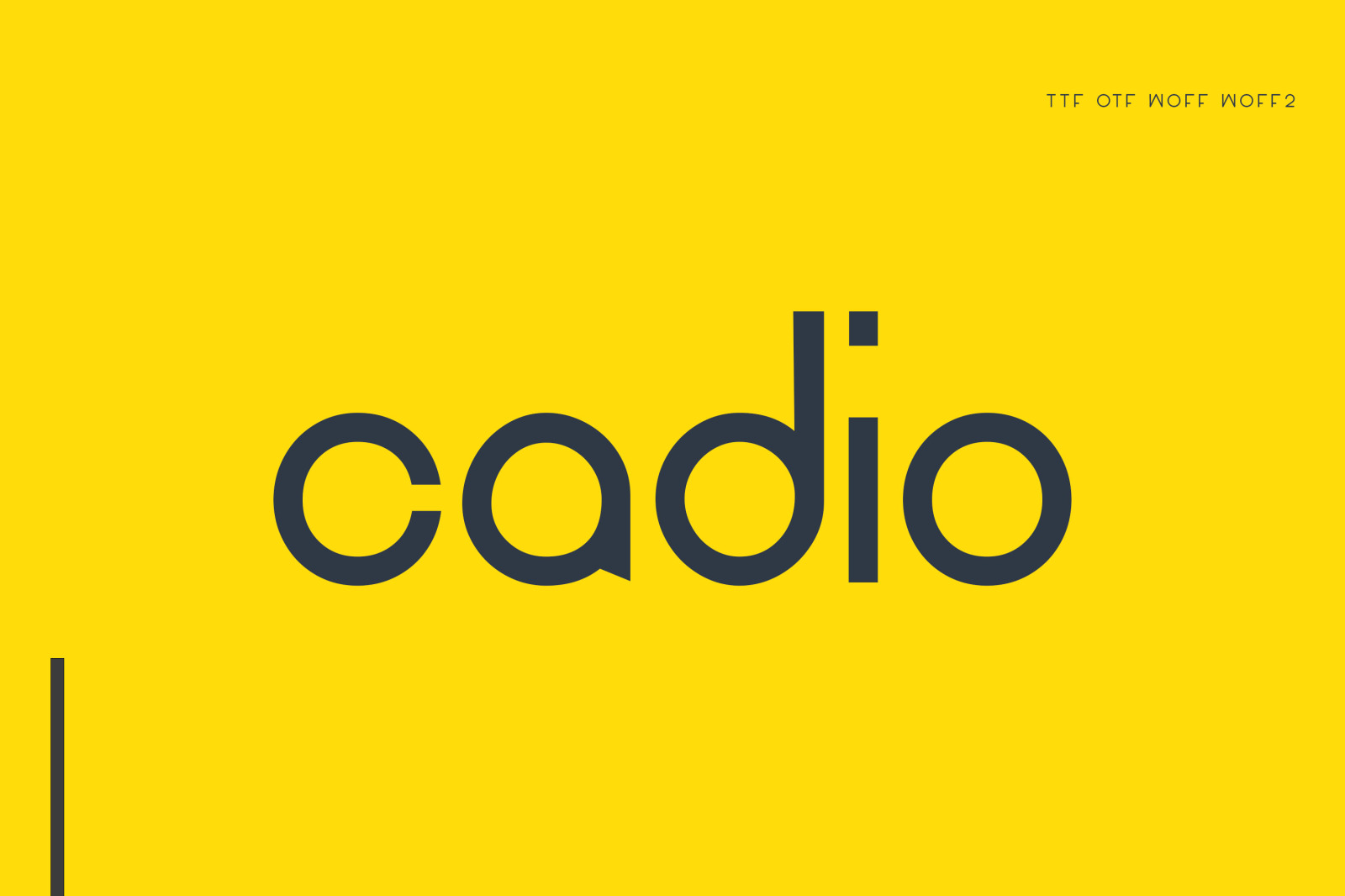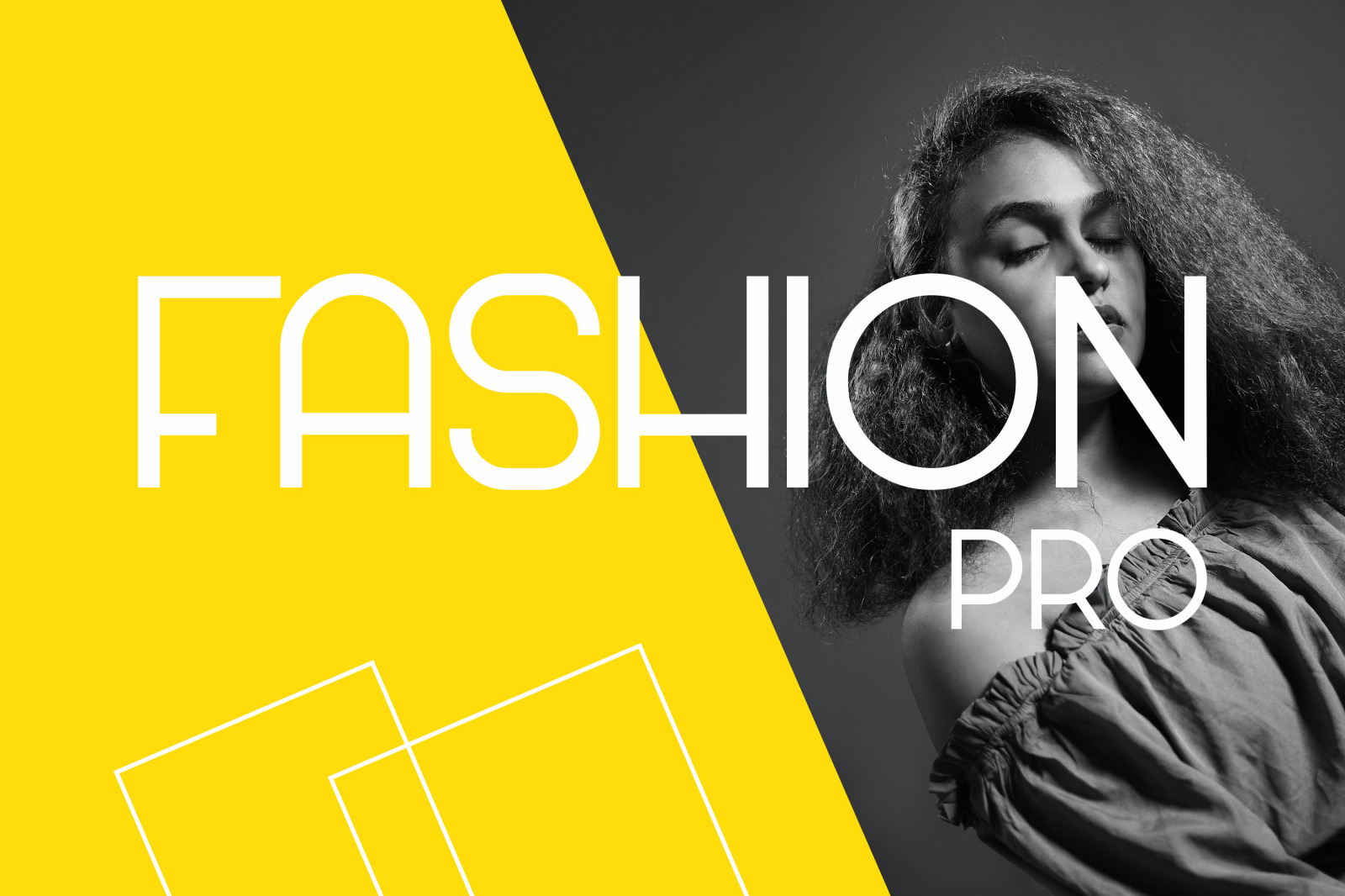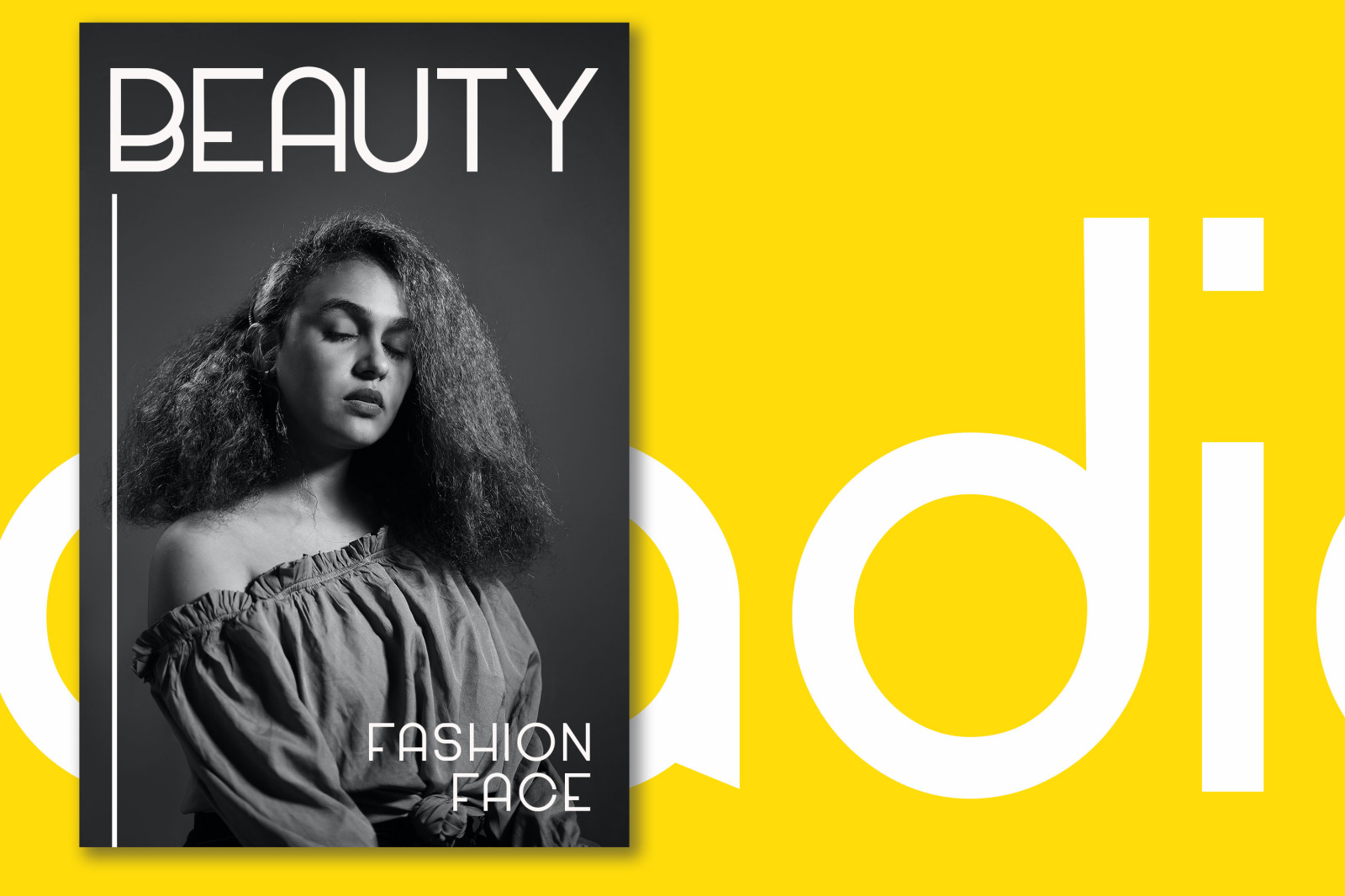
Cadio Font
Cadio is a modern and clean display font. Suitable to a wide variety of designs due to its neat and simple style, this font has the potential to become your favourite go-to font, no matter the occasion!
Cadio Font works great in branding, logos, headlines, fashion branding, all displays , magazines, while its simplicity allows it to be a useful font for many occasions.